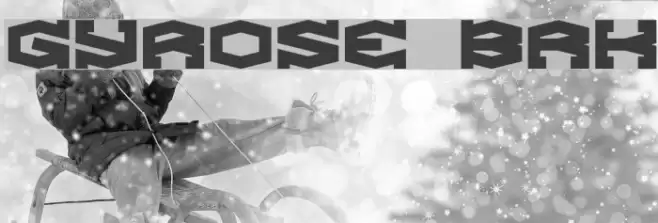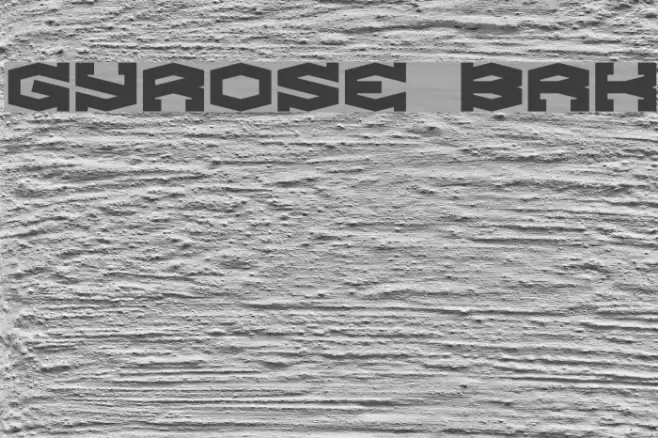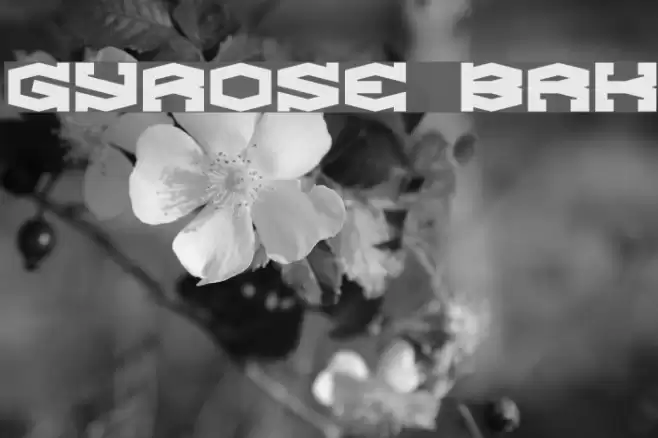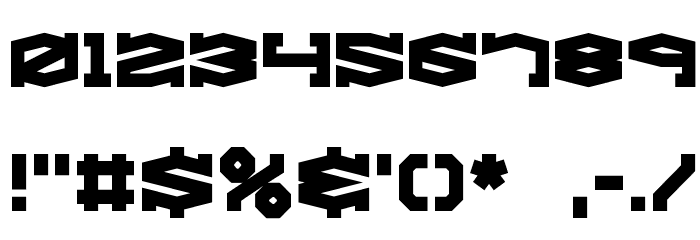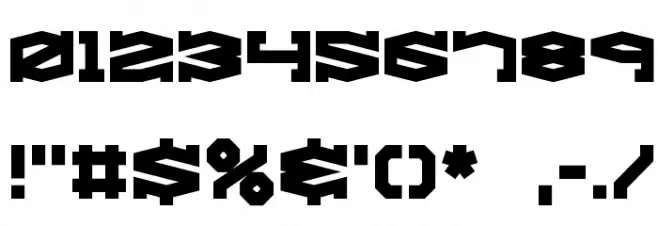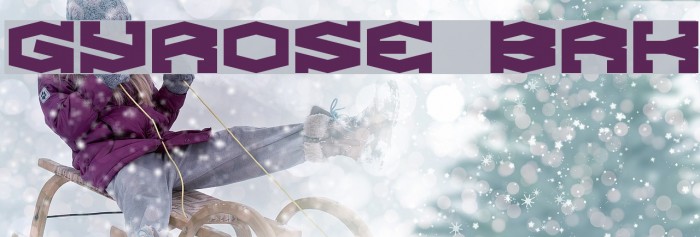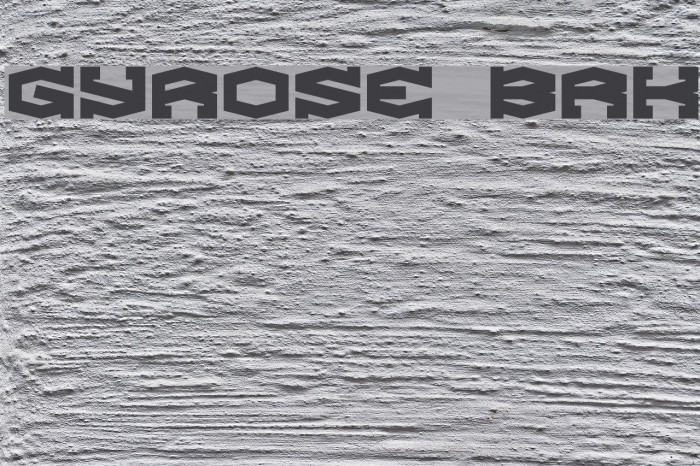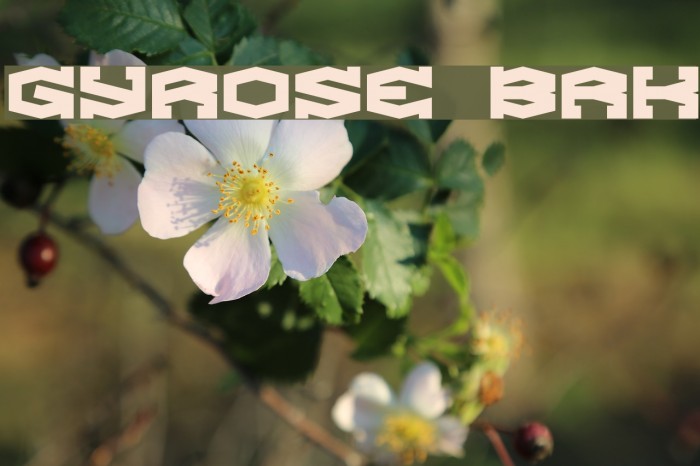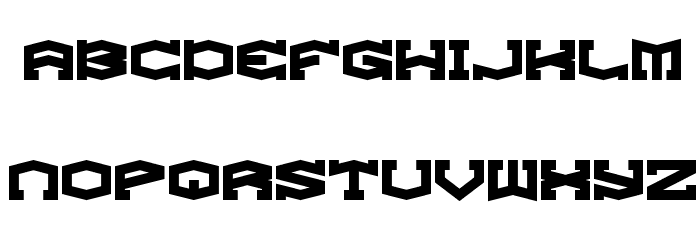
Gyrose BRK Font
Gyrose BRK Description
This font features a bold and angular design with a futuristic and geometric aesthetic. The characters are constructed with sharp, straight lines and distinct angles, giving them a unique, edgy appearance. The uppercase and lowercase letters maintain a consistent style, with a strong emphasis on symmetry and uniformity. The numbers and special characters follow the same design principles, ensuring a cohesive look across all glyphs. This font's striking appearance makes it ideal for projects that require a modern and dynamic visual impact.
A bold, angular font with a futuristic, geometric style from Capitals fonts.
- Proposed Projects: Ideal for sci-fi themed designs, video game titles, posters, and branding that requires a modern, edgy look.